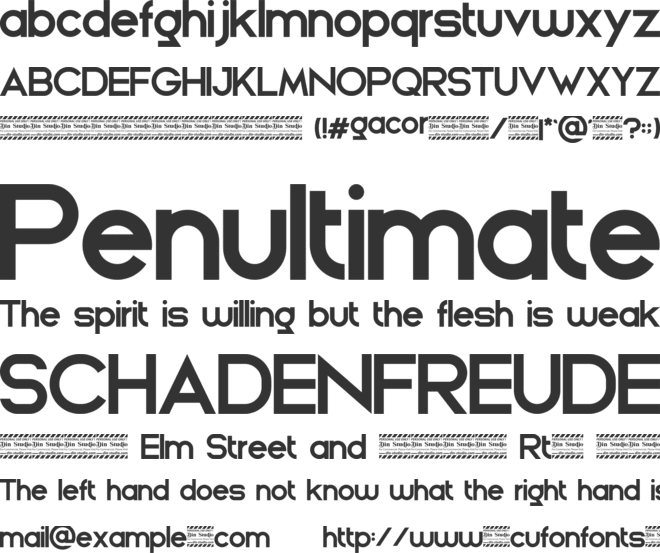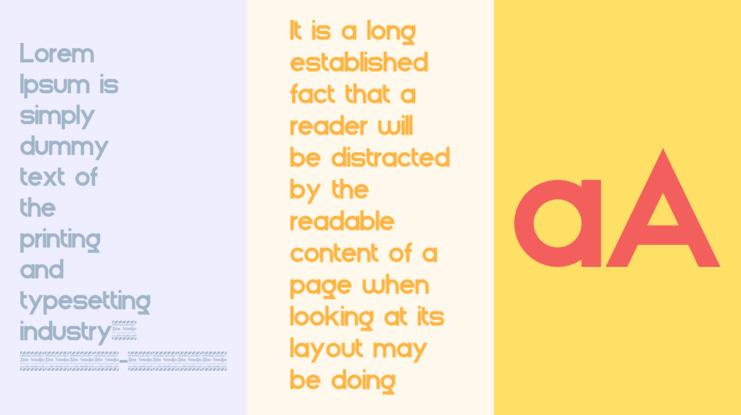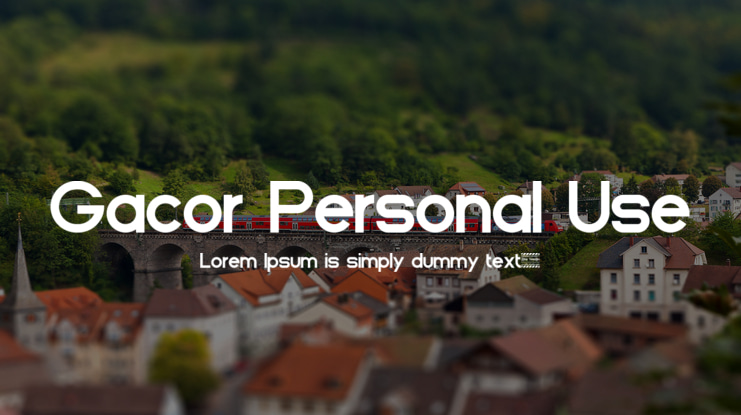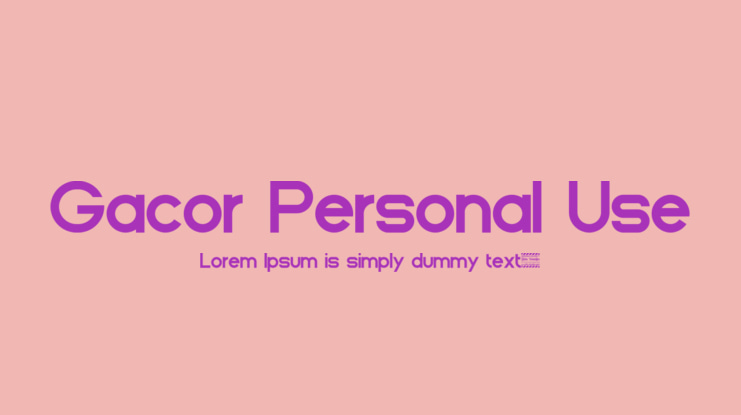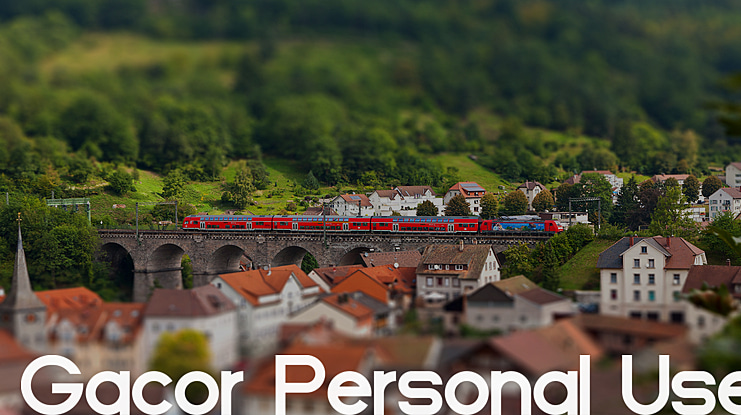
Gacor is urban sans serif font. Made for any professional project branding. It is the best for branding, printing, and quotes. Every letter has a unique and beautiful touch.